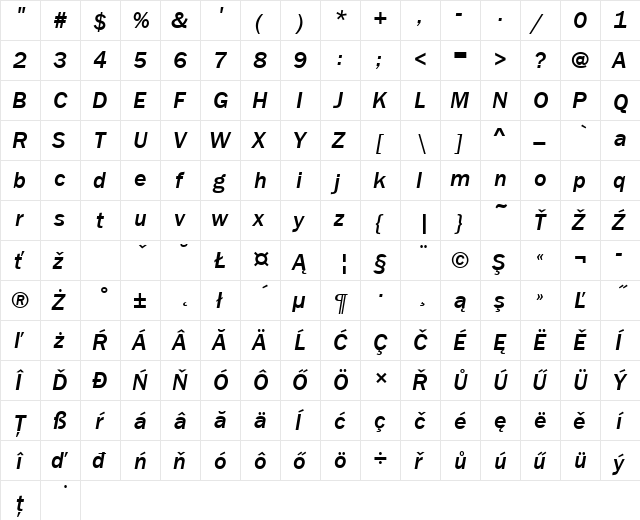
FranklinGotItcTEEMed Italic Font Preview
FranklinGotItcTEEMed Italic
Design Context for FranklinGotItcTEEMed Typeface
FranklinGotItcTEEMed offers clean, dependable letterforms without strong stylistic allegiance, making it a practical choice for designers who need flexibility. The slanted form adds forward momentum and visual energy.
Pro Tip: Use FranklinGotItcTEEMed for emphasis, pull quotes, and subheadings where its slanted energy can add rhythm to the layout.